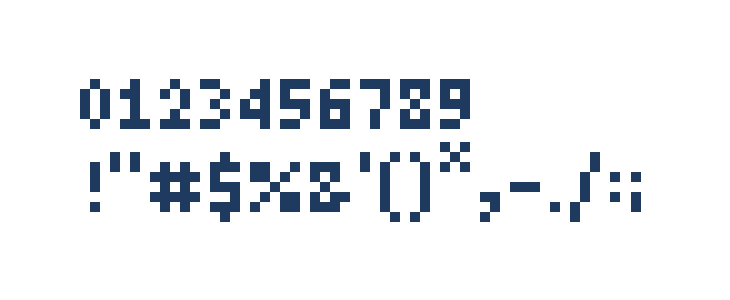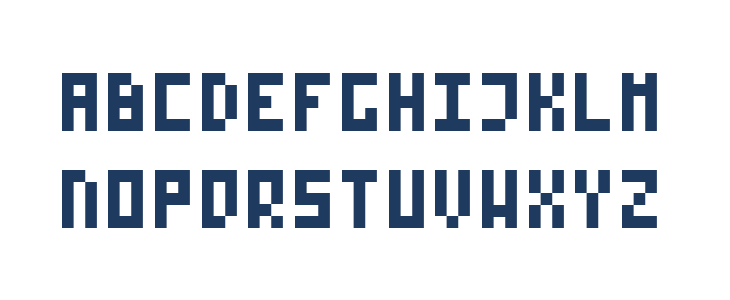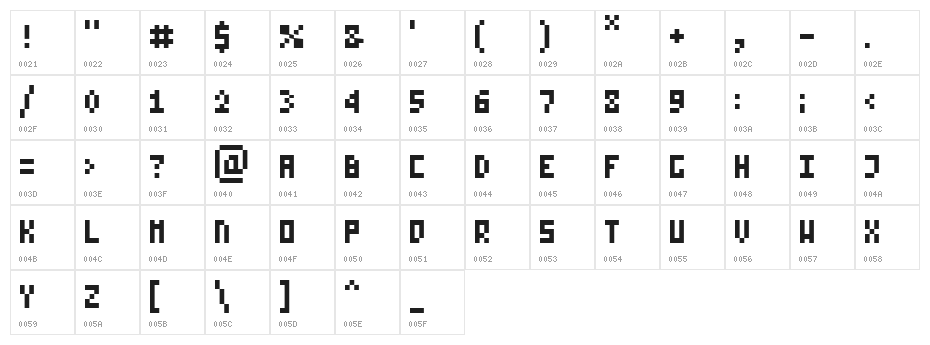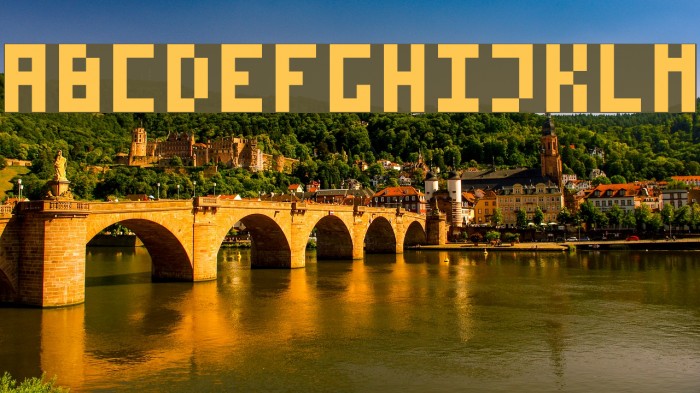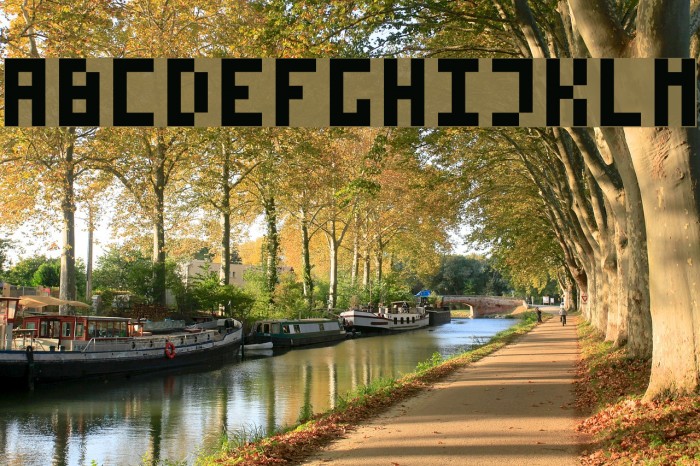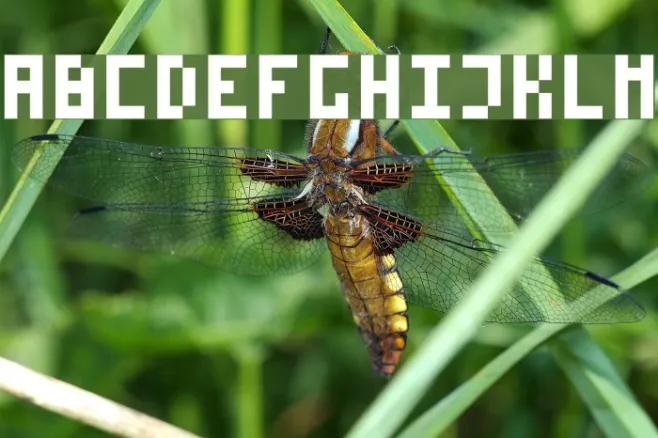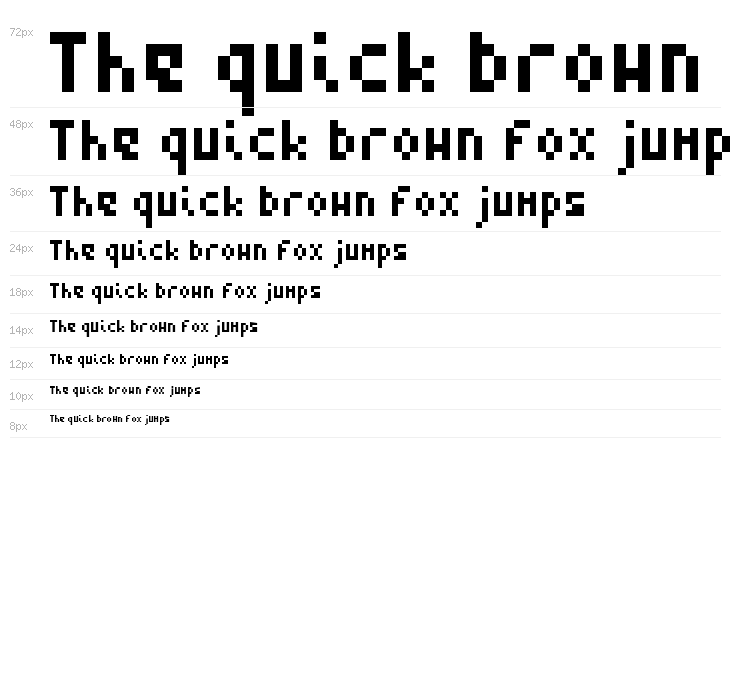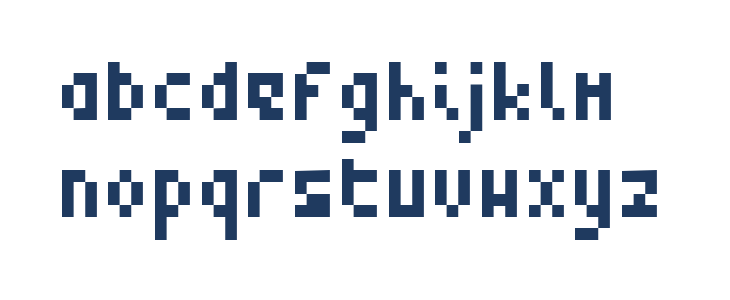
Zepto Font
Zepto Description
This font features a bold, pixelated style reminiscent of early digital and arcade aesthetics. Each character is composed of distinct square blocks, giving it a retro, digital feel. The uniformity in the design ensures that each letter and number maintains a consistent height and width, contributing to a cohesive and structured appearance. The uppercase and lowercase letters, along with numbers and special characters, all adhere to this blocky, pixelated form, making it ideal for projects that aim to evoke nostalgia or a tech-centric theme. Its simplicity and clarity make it highly legible, even at smaller sizes.
| Use Case | Headlines, Logos, Display text |
| Proposed Projects | Ideal for video game design, tech-themed posters, retro digital art, and any project requiring a nostalgic digital look. |